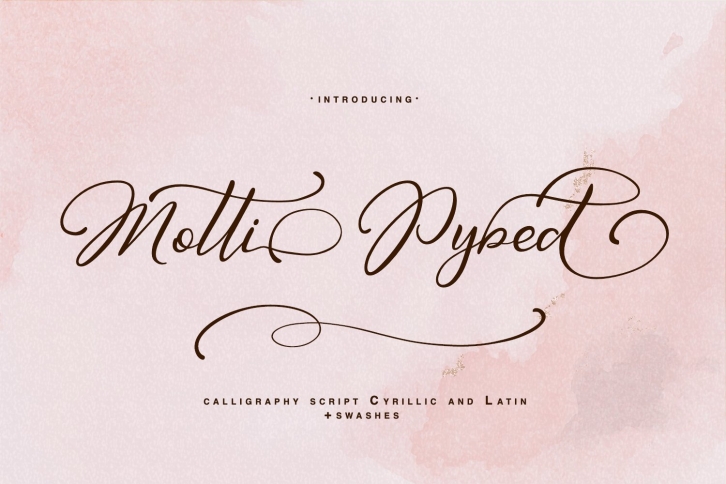
Motti Pybed is a trendy and unique font with an authentic style. It was designed by JaneTally and it's a great choice for creative people who need such a font. It was released on September 8, 2021 and the file size is 18.12 MB. Motti Pybed will add an organic vibe to any design idea!